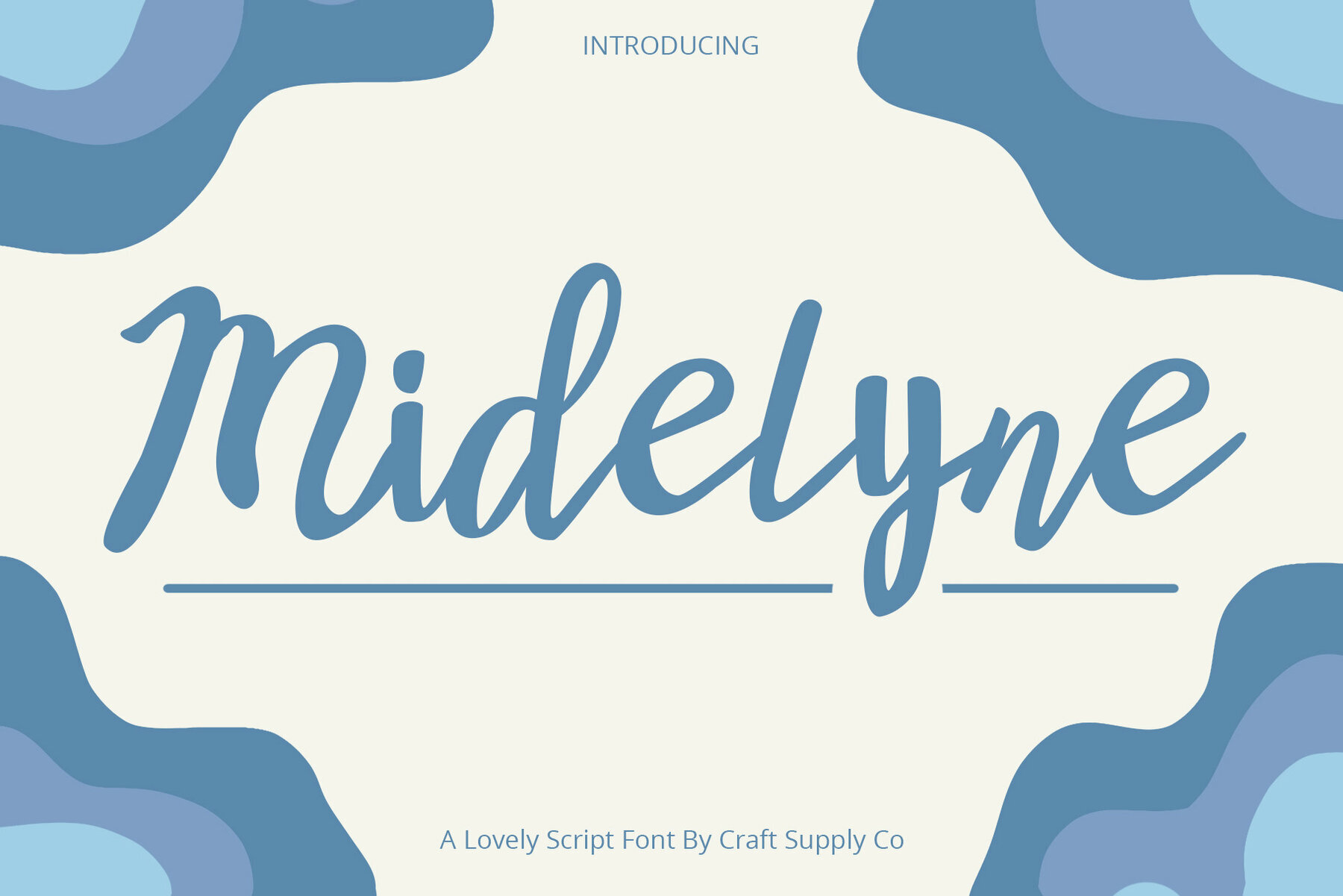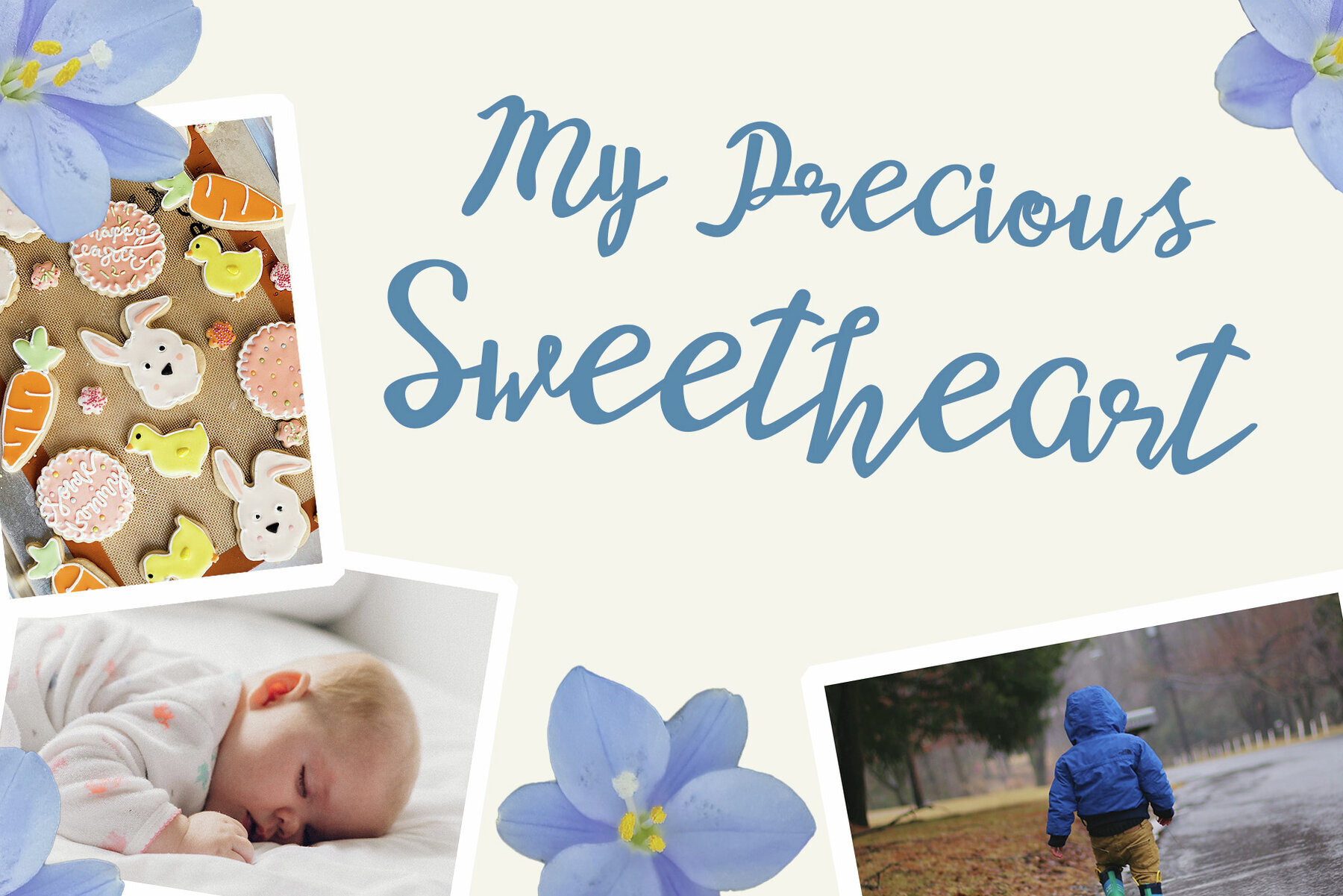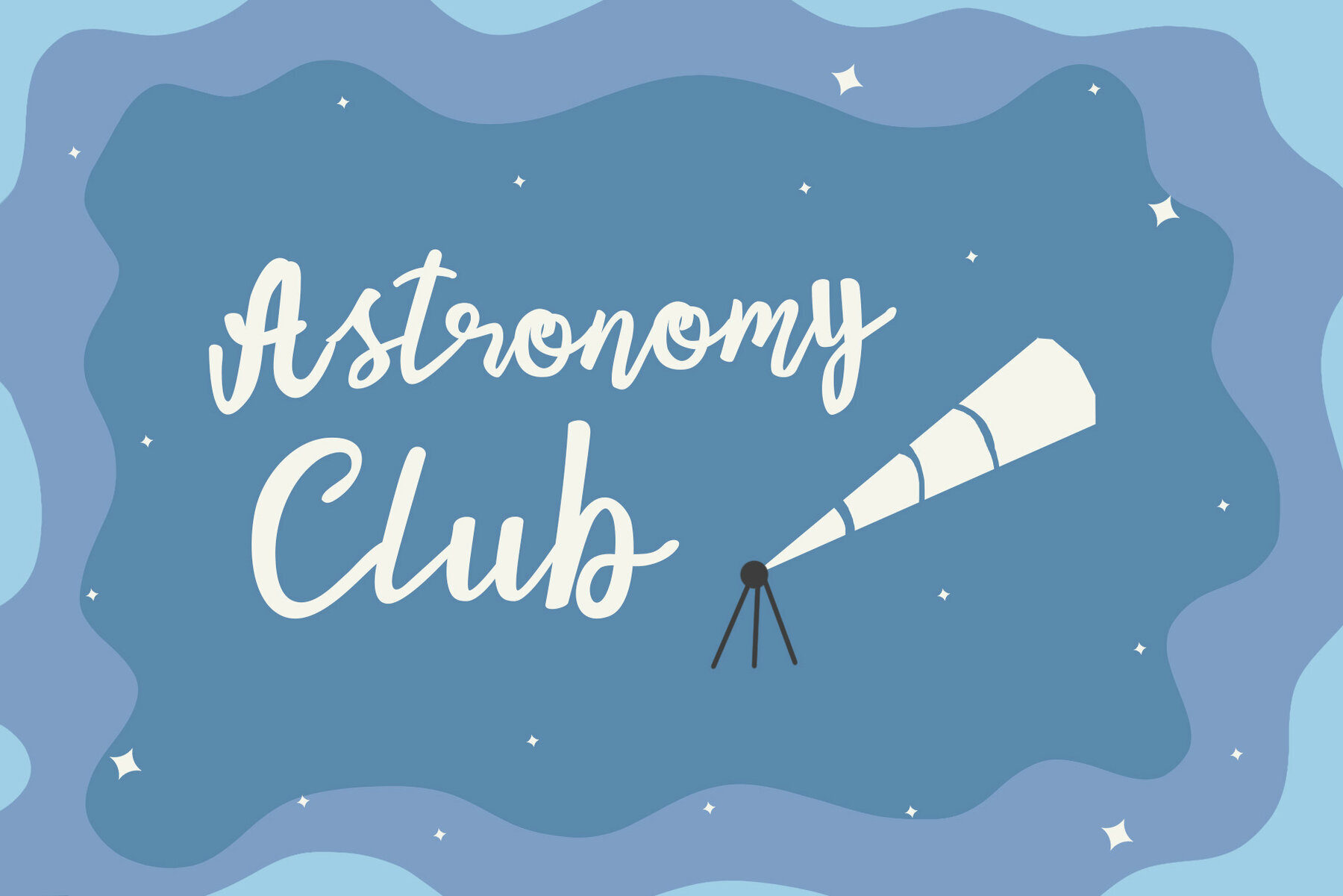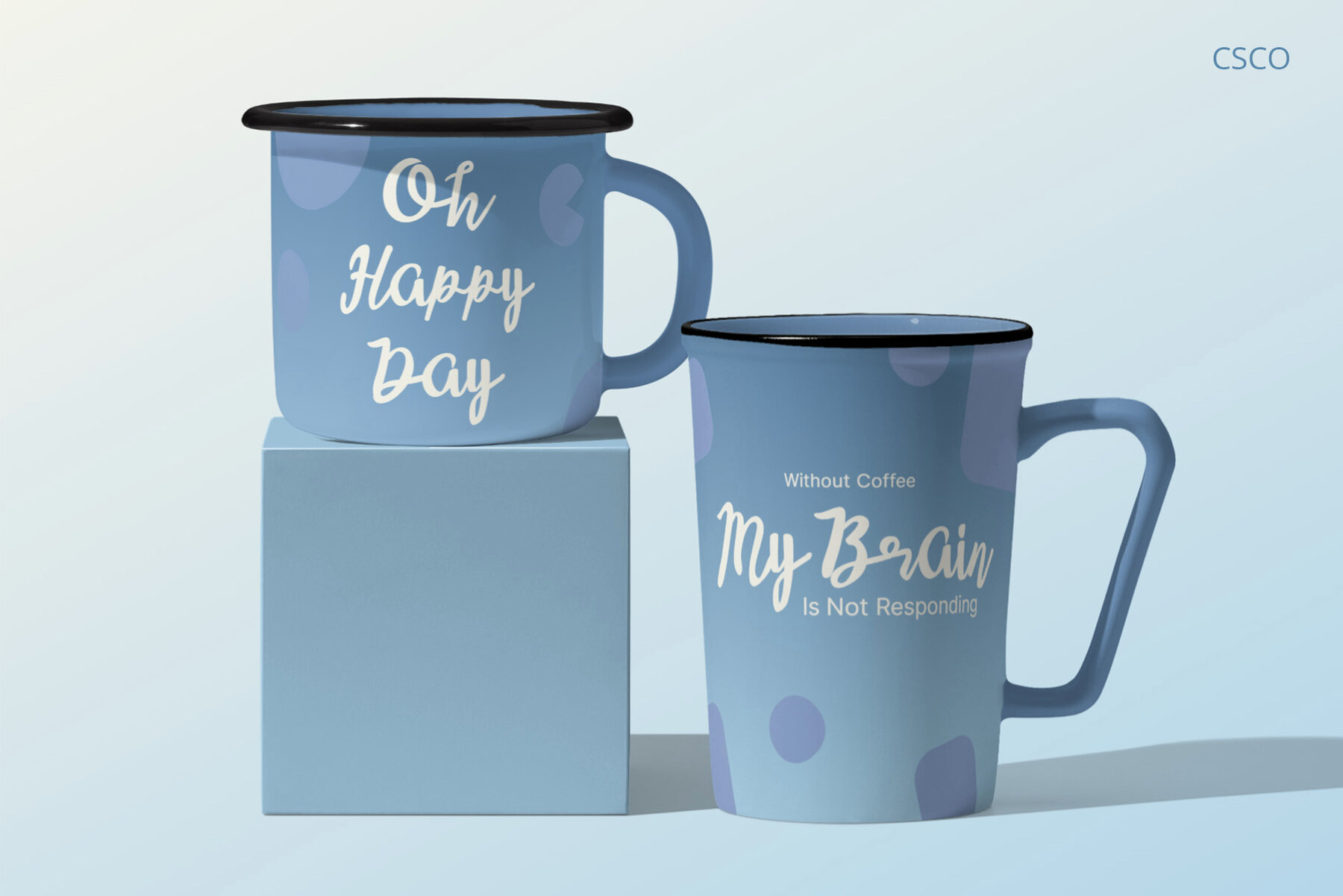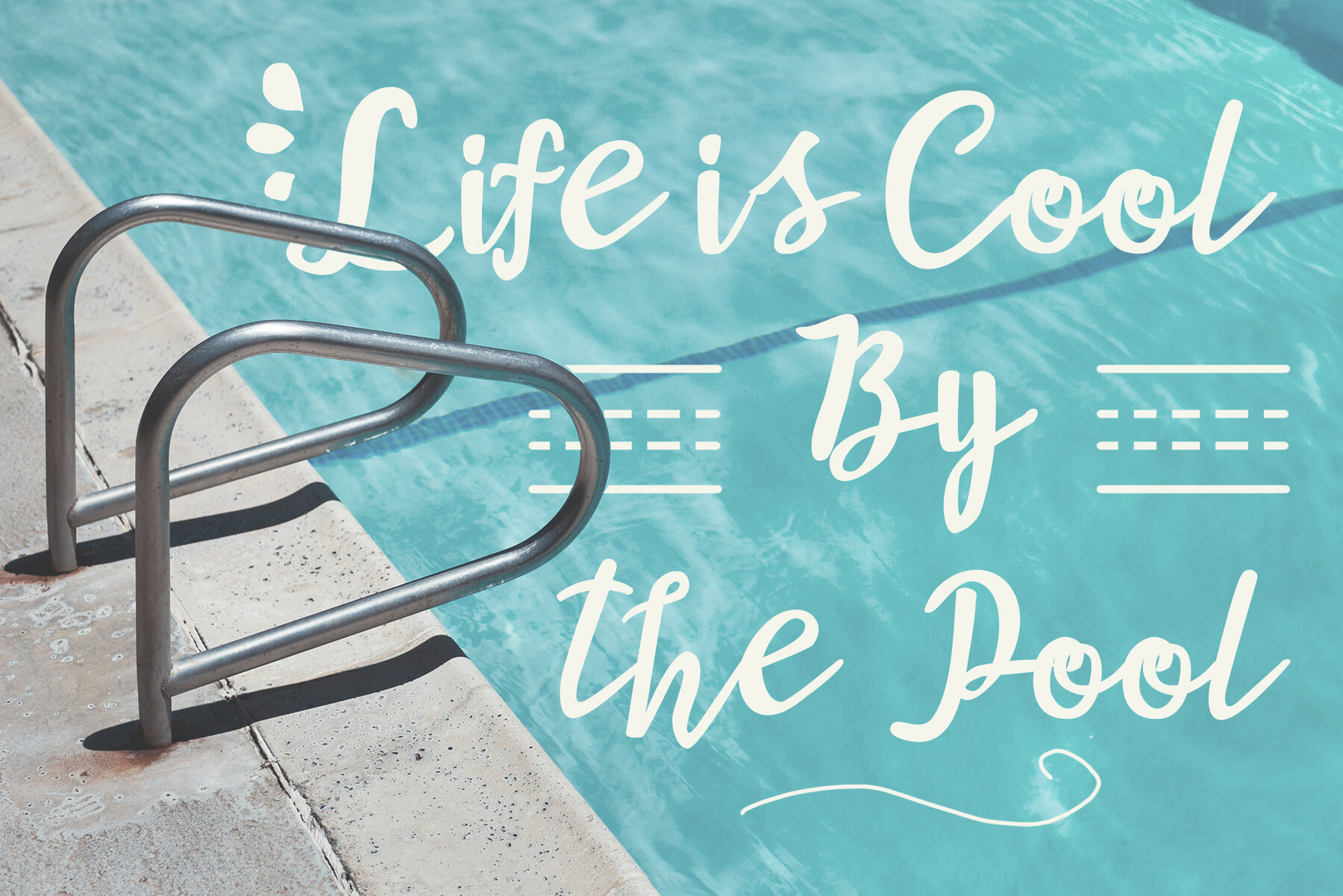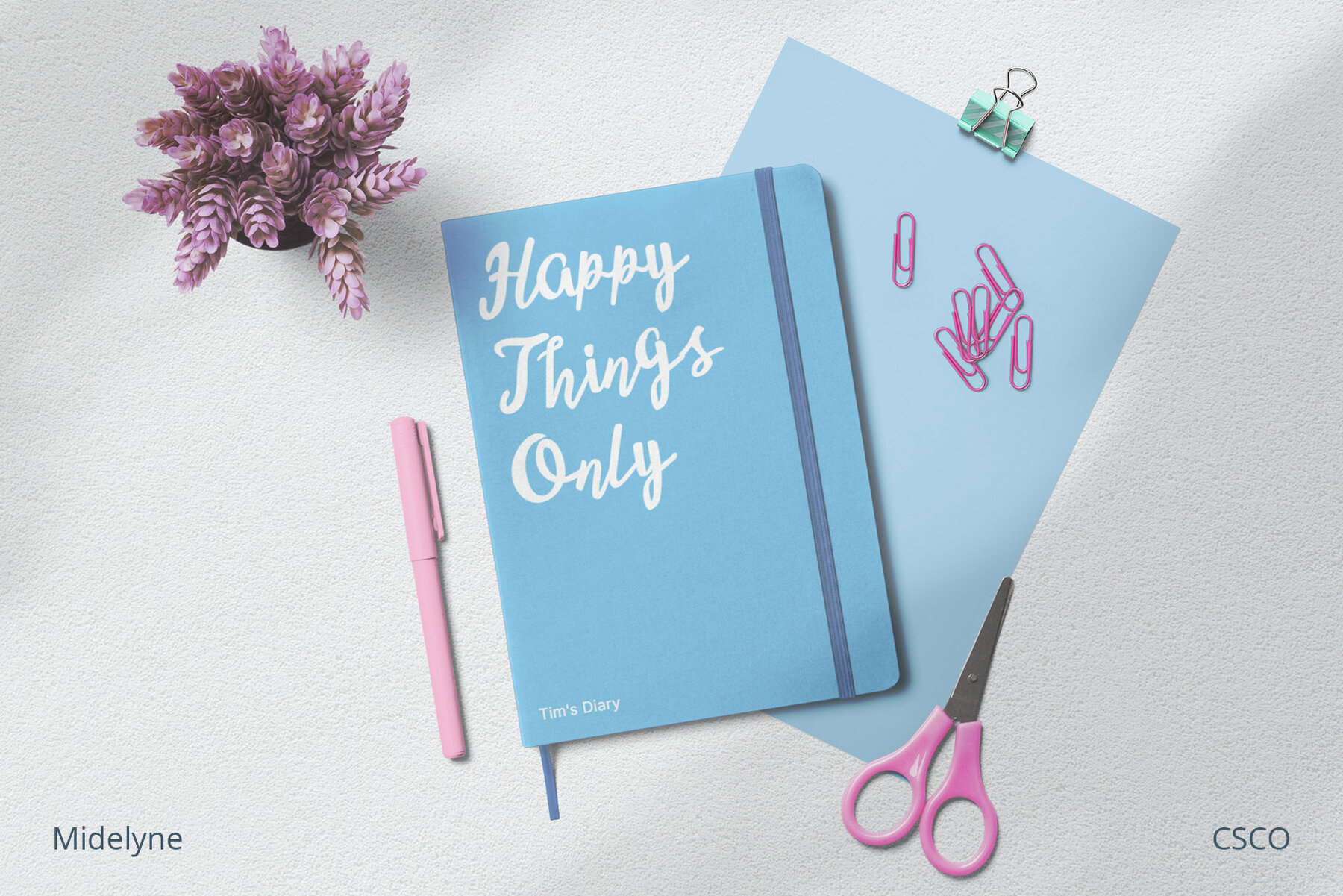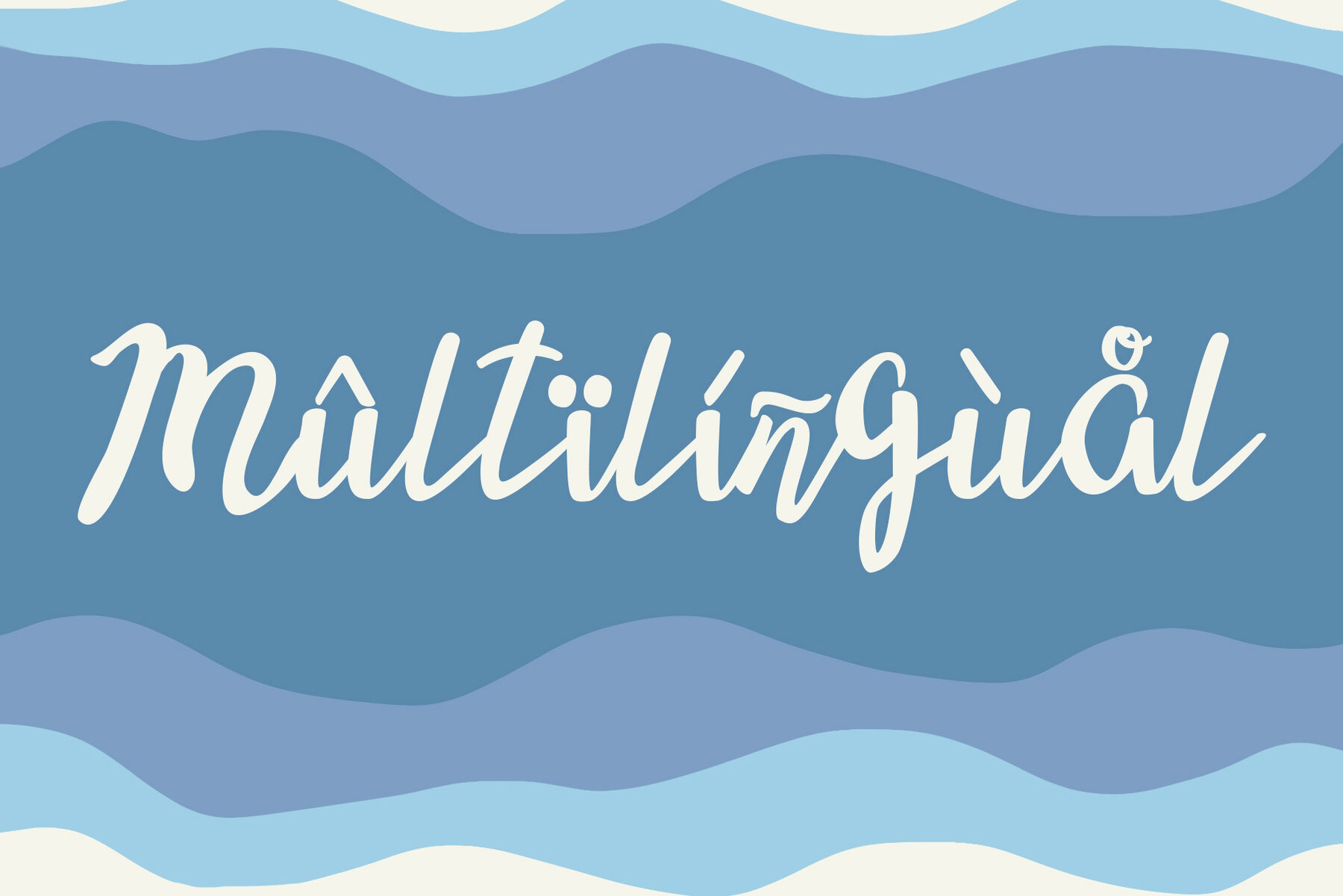
Midelyne Font
Midelyne Regular
Step into the enchanting world of Midelyne Script, where adorable elegance reigns supreme. This font epitomizes cuteness and is perfect for adding a touch of charm to your designs. Midelyne's playful character sets the stage for a delightful and whimsical journey. It's an excellent choice for a range of creative endeavors, infusing each project with a joyful spirit. Beyond its cute facade, this font offers incredible versatility. It effortlessly adapts to various design contexts, from invitations to branding, enhancing the visual appeal of every project.Midelyne Script: Adorable Elegance for Creative Projects
Playful Charm
Versatile Usage